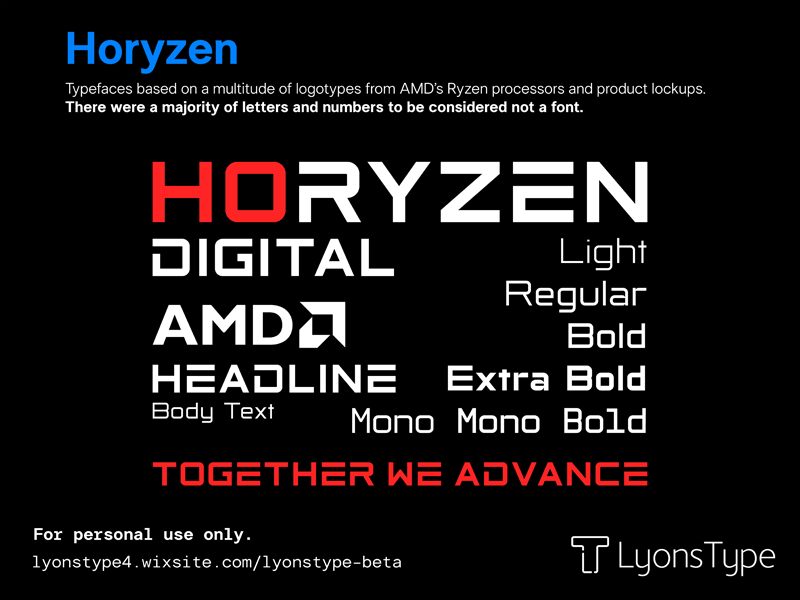
Horyzen Light
Horyzen Light, a sleek addition to the Horyzen font family by LyonsType, brings a futuristic edge to the realm of typography. Its techno style embodies modernity with an expanded width that stretches across the page, providing a refreshing clarity. The light weight of Horyzen Light offers a subtle grace that complements its bold structure, making it an exceptional choice for designers looking to inject sophistication into their display work.
The expanded letterforms allow for easy readability, while their streamlined construction gives off an air of innovation and precision. This display typeface shines in settings where impact is key without overwhelming the senses-ideal for branding, high-tech presentations, and minimalist designs seeking a touch of elegance.
Embrace the cutting-edge aesthetic of Horyzen Light and elevate your creative projects with its distinctive blend of contemporary style and understated finesse.
Typefaces based on a multitude of logotypes from AMD's Ryzen processors and product lockups.
There were a majority of letters and numbers to be considered not a font.
Resources from various AMD product lockups, compiled and extended into a full typeface.